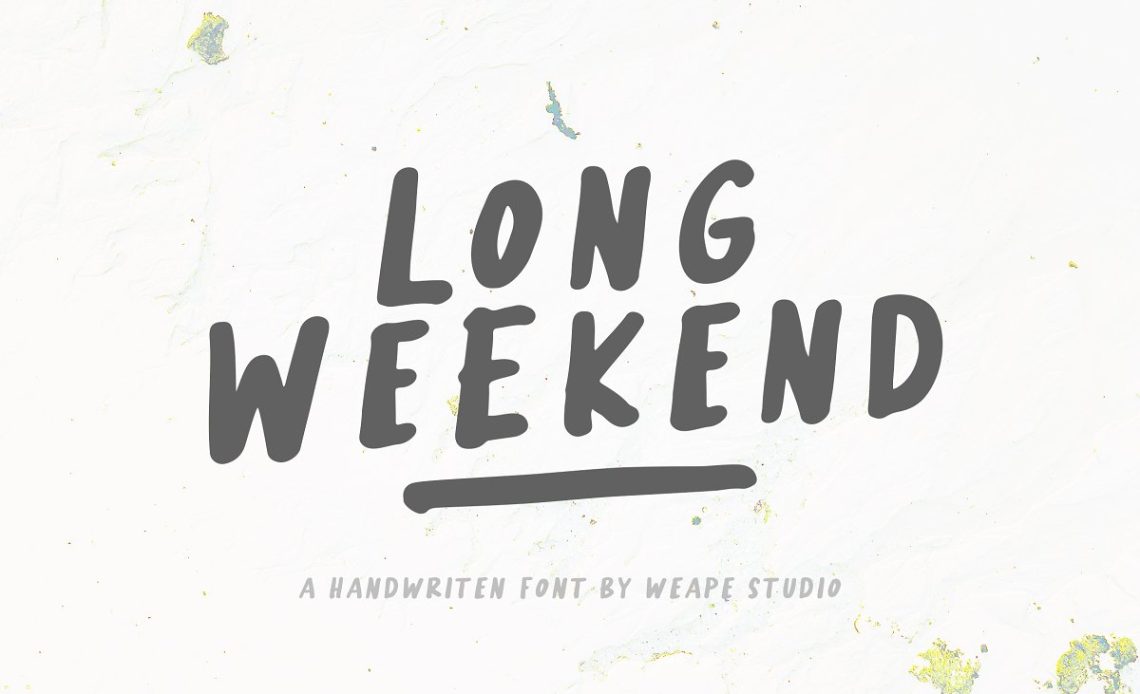
Introducing Long Weekend, the perfect handwritten font for those looking to add a personal touch to their designs. Created by Weape Studio, this font family is perfect for various design projects such as signature, logo, branding, poster, band, apparel, photography, title, social media post, ad banner, book cover, product packaging, handwritten quotes, and advertising.
With all capital letter characters, numerals, multilingual support, and a wide range of punctuation, Long Weekend is not only versatile but also captivating. The unique combination of uppercase and lowercase letters provides a natural and genuine look, making it ideal for personalizing your designs.
With many ligatures available, it is easy to create stunning designs and make them appear as if you wrote them yourself. The Long Weekend font family is available in various formats such as OTF, TTF, WOFF, and WOFF2, making it accessible for use across different platforms.
This handwritten font is perfect for those looking to create a personal connection with their audience. It is a font that speaks to the heart and draws in the viewer, evoking feelings of warmth and familiarity. The Long Weekend font family is perfect for bloggers, writers, and designers who want to make their work stand out from the crowd.
Whether you are creating a book cover, product packaging, or advertising material, Long Weekend is the best font for the job. It is a keyword-rich font that is perfect for book projects, and it will bring your writing to life with its unique style.
In conclusion, Long Weekend is a captivating and unique font family that is perfect for anyone looking to create a personal connection with their audience. Its versatility, unique style, and wide range of uses make it an excellent choice for designers of all skill levels. Don't miss out on this fantastic font family, download Long Weekend today and start creating stunning designs that capture the essence of your message.